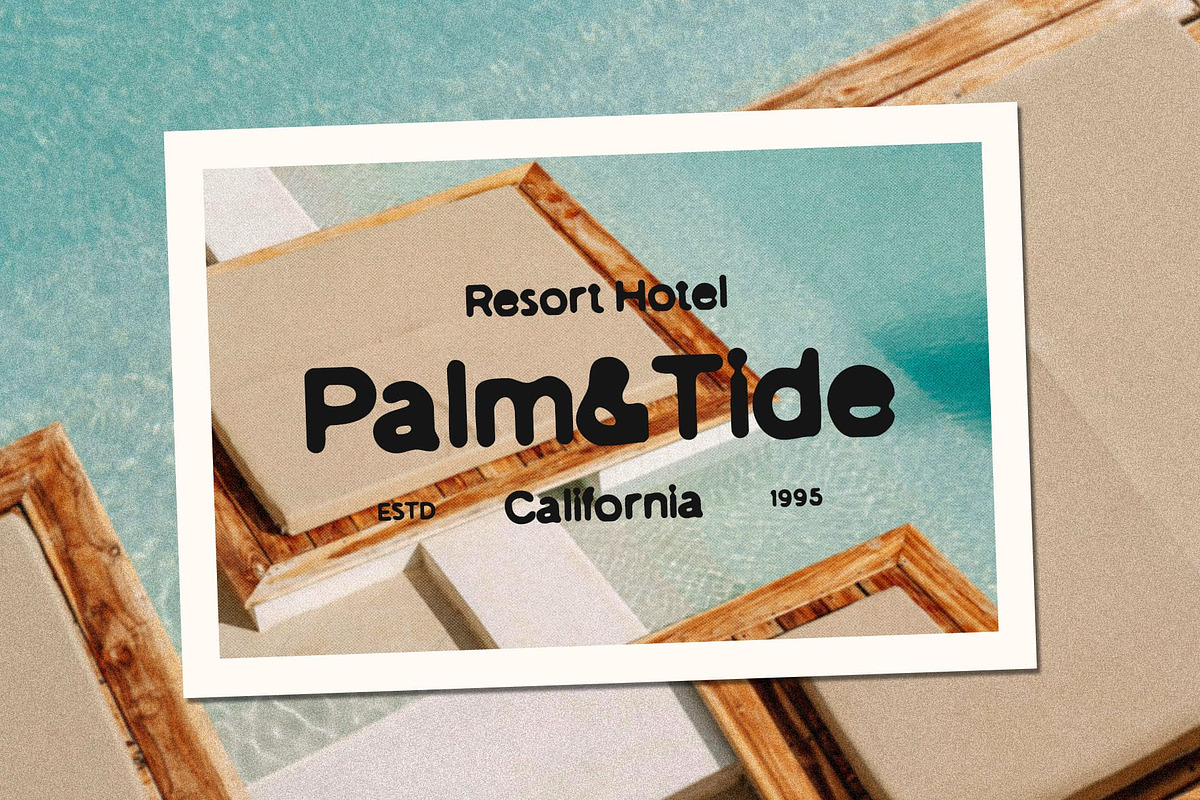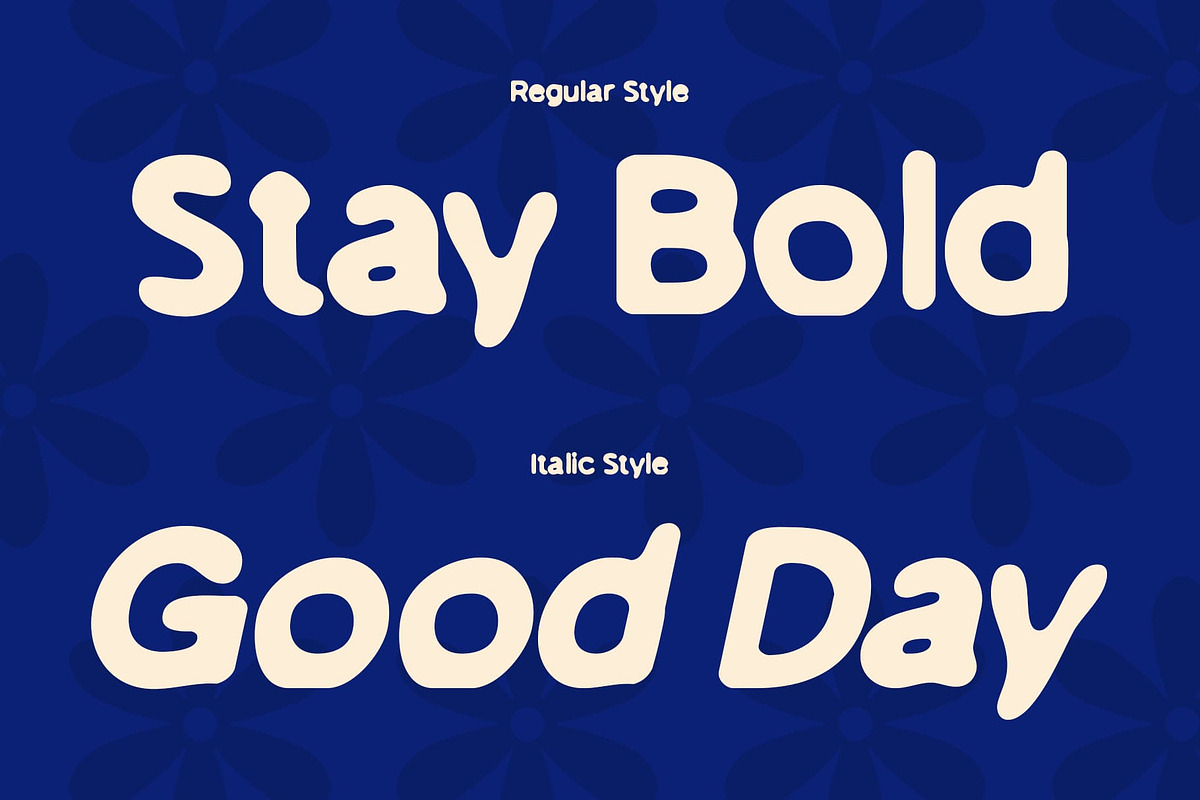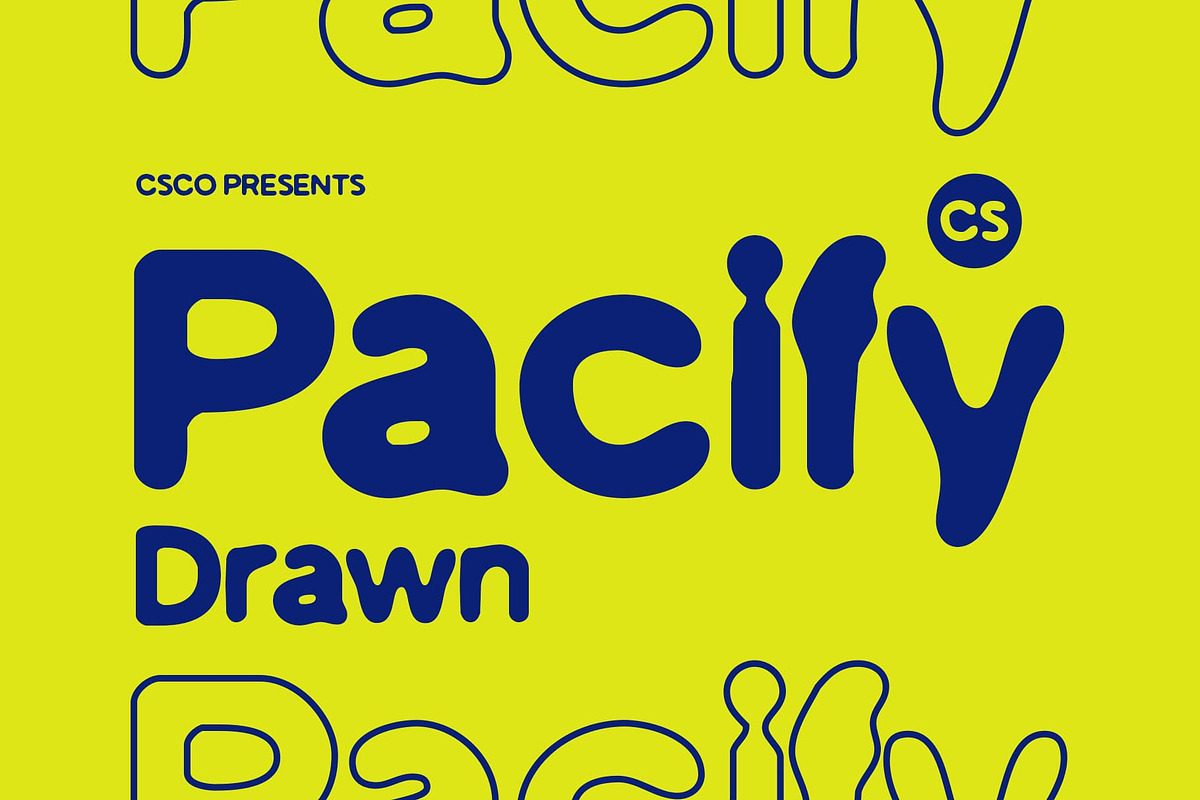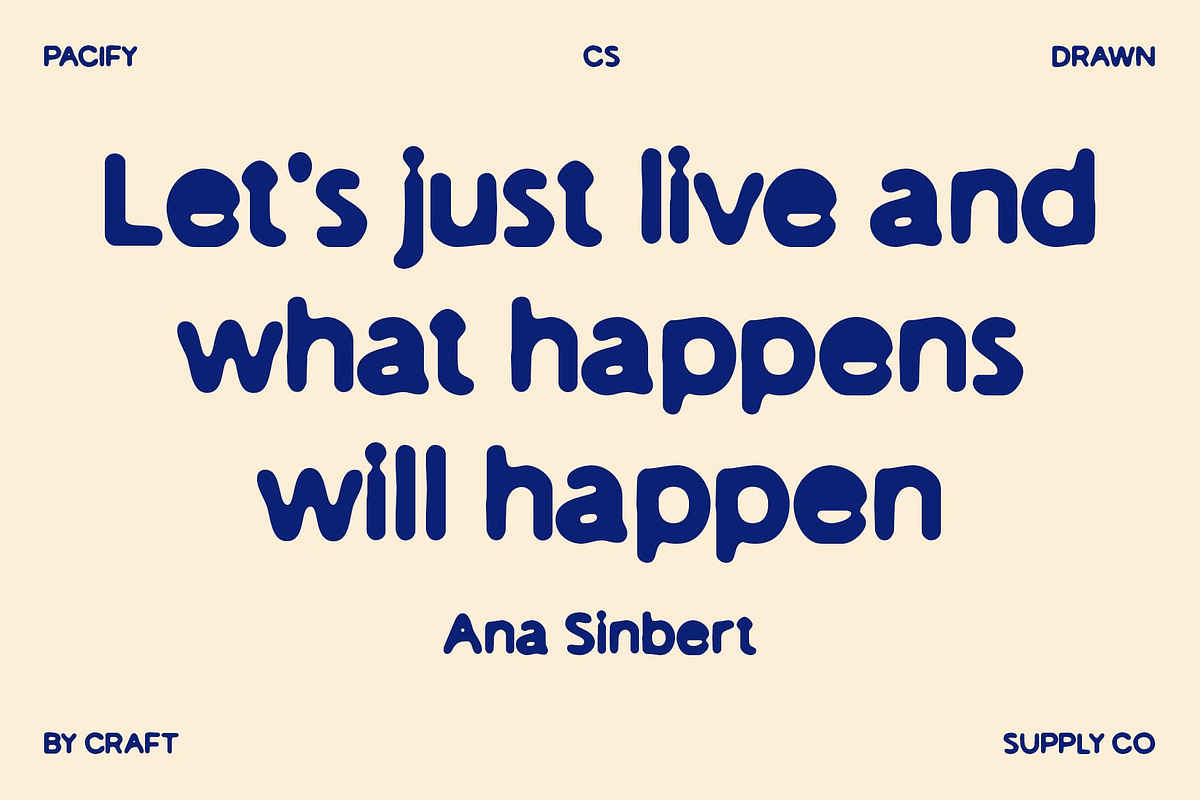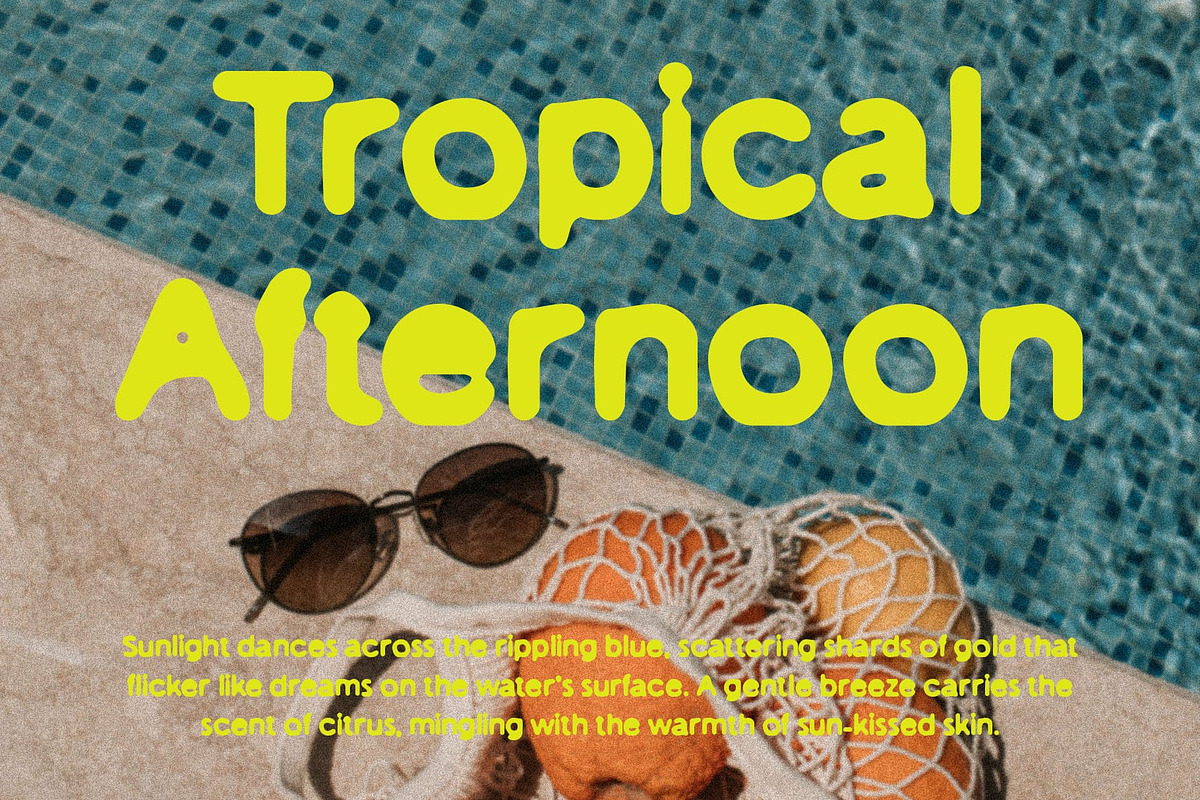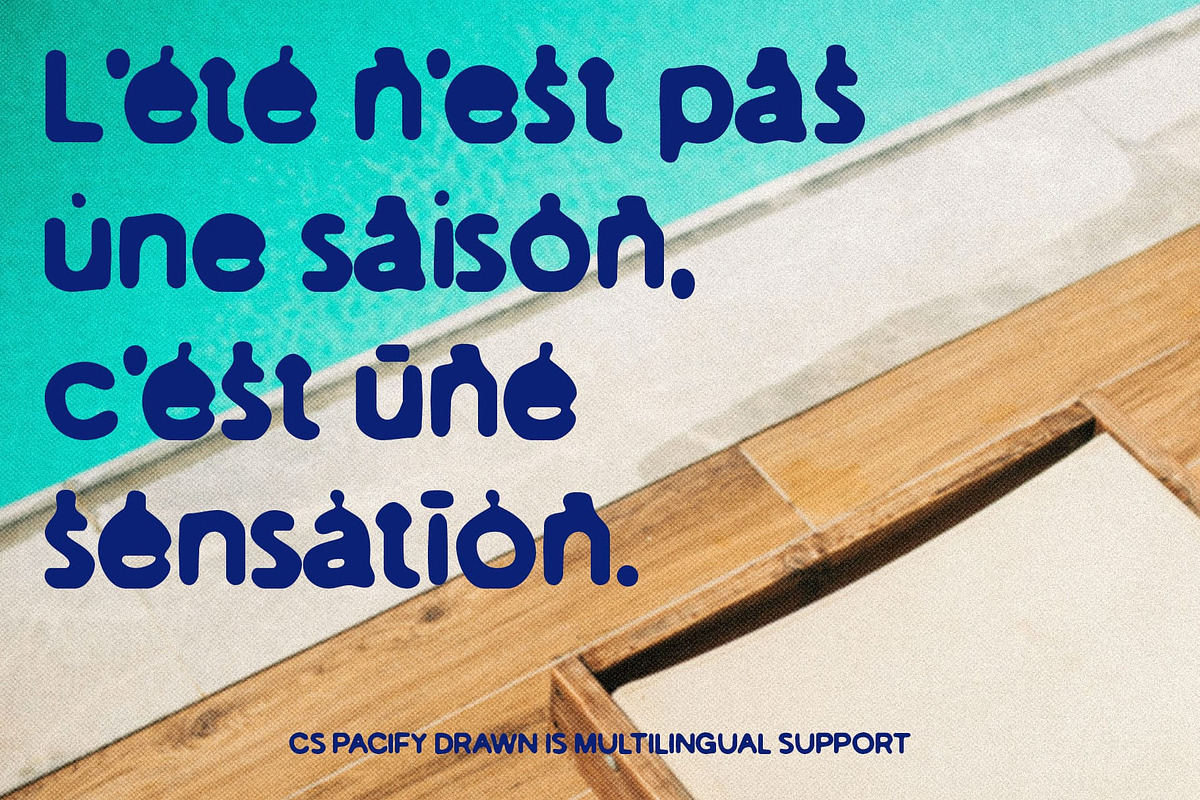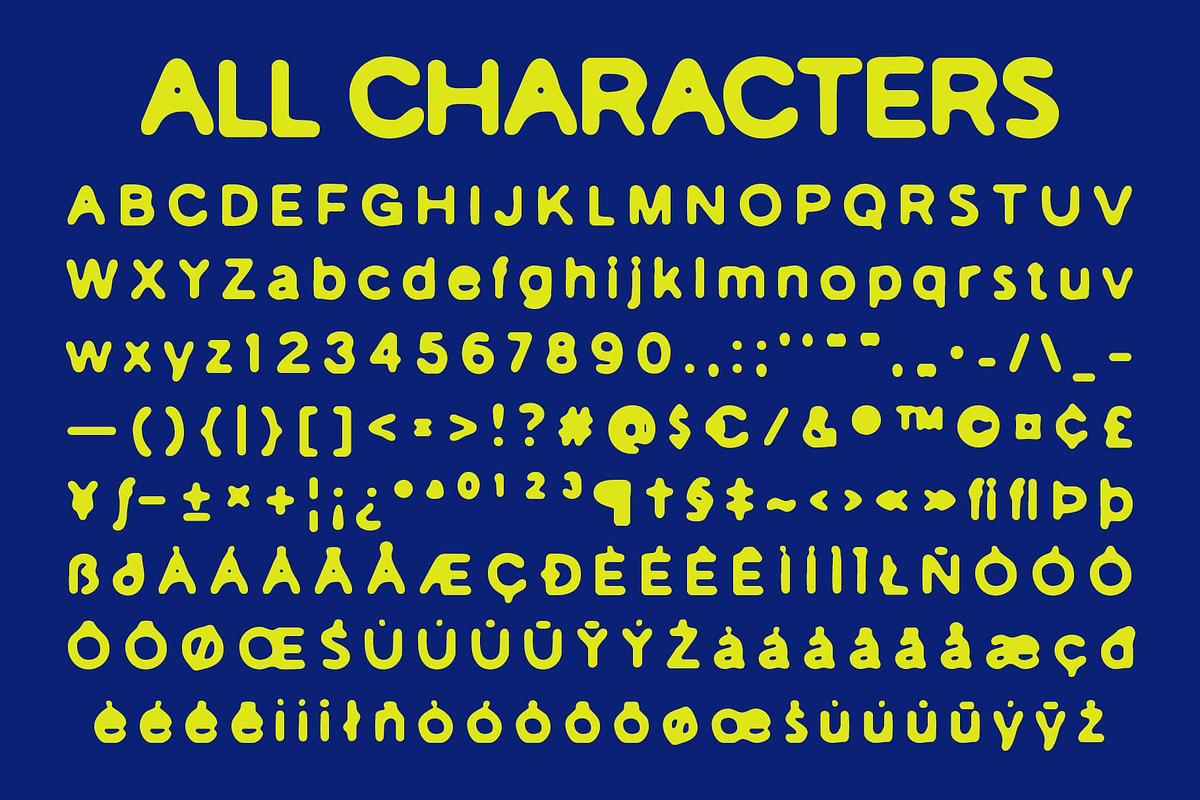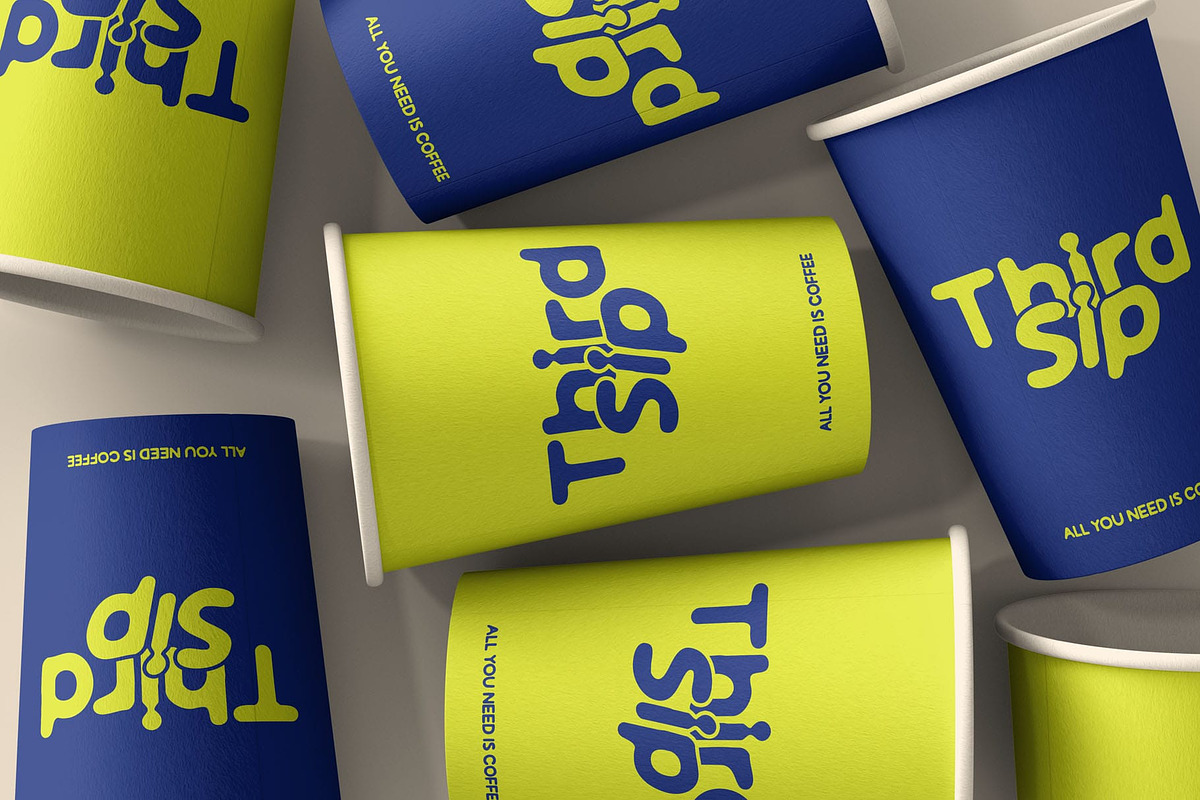
CS Pacify Drawn
CS Pacify Drawn – Modern Sans Serif Display with Psychedelic Flair
Dynamic Psychedelic Letterforms CS Pacify Drawn features modern sans serif display shapes with curving, dynamic lines that create a bold and funky visual impact. Its playful and experimental forms make every character stand out, giving your designs a lively and unique personality.
Artistic Handmade Texture Enhanced with a drawn effect, each letter carries a subtle handmade texture that adds depth and individuality. This artistic detail transforms standard sans serif forms into expressive, visually engaging typography, perfect for projects seeking both creativity and character.
Funky and Expressive Style Balancing modernity with experimental flair, this artistic font conveys energy and originality. Its psychedelic-inspired forms and handcrafted texture make it ideal for posters, music designs, or visual projects that aim to capture attention and leave a memorable impression.
Versatile Creative Applications From album covers and event posters to digital designs and branding projects, this unique font adapts effortlessly to a variety of creative contexts. Its combination of modern structure, psychedelic shapes, and drawn artistry ensures that every design feels vibrant, unique, and full of life.
Standout Presence in Every Design With bold curves, dynamic forms, and tactile handcrafted detailing, this experimental font offers both readability and personality. This font elevates any project with its energetic, artistic, and distinctive style, making it a perfect choice for designers looking to create bold, unforgettable visuals.
- CS Pacify Drawn Regular
- CS Pacify Drawn Italic